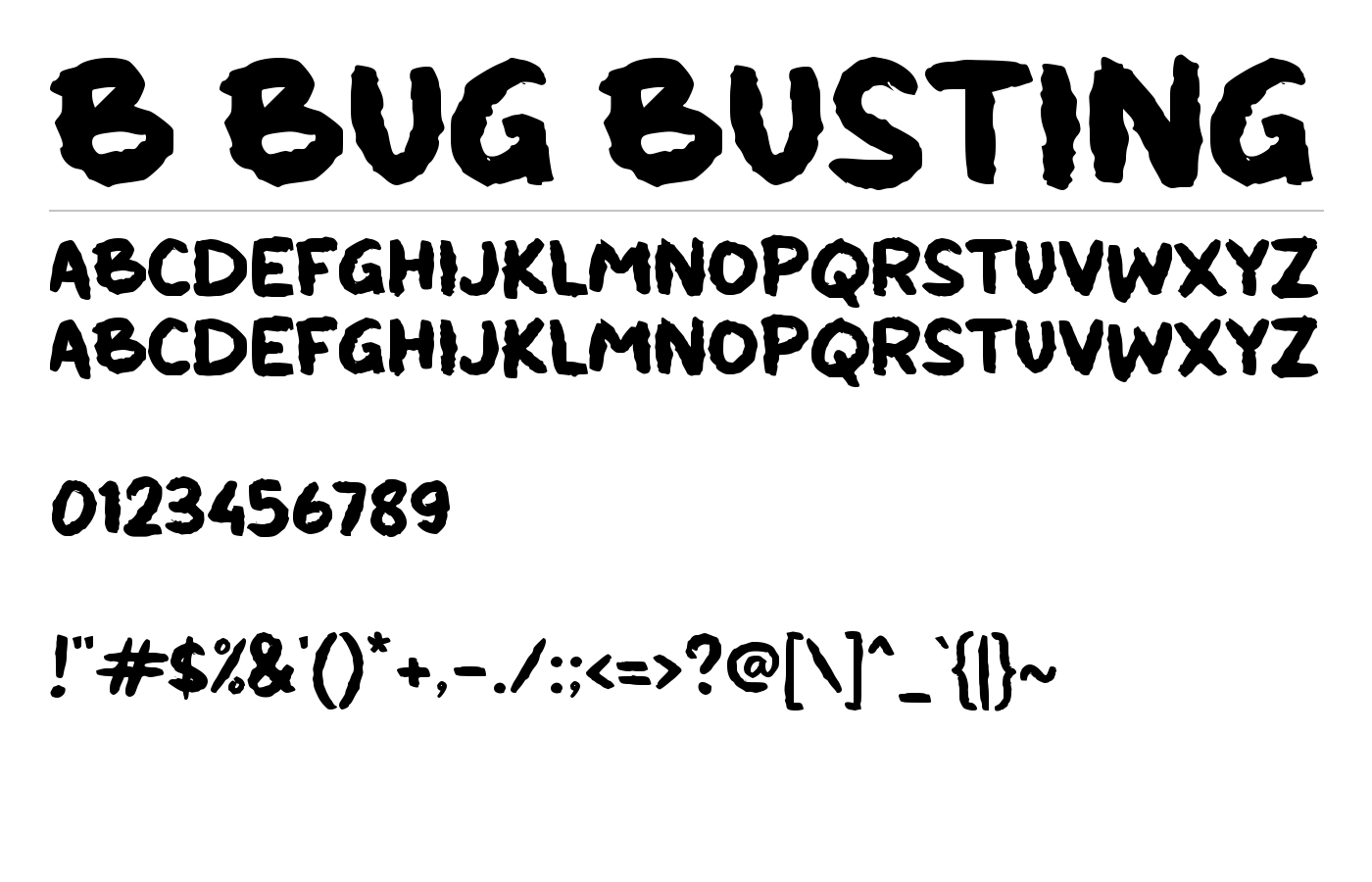
b Bug Busting is a bold, playful sans serif font with a hand-drawn, textured feel that adds character and energy to any design. Its irregular, chunky letterforms and slightly rough edges make it ideal for creative projects looking for a fun and casual vibe. This font works best for headlines, posters, packaging, or branding that aims to stand out with an informal, approachable personality.
b Bug Busting Font